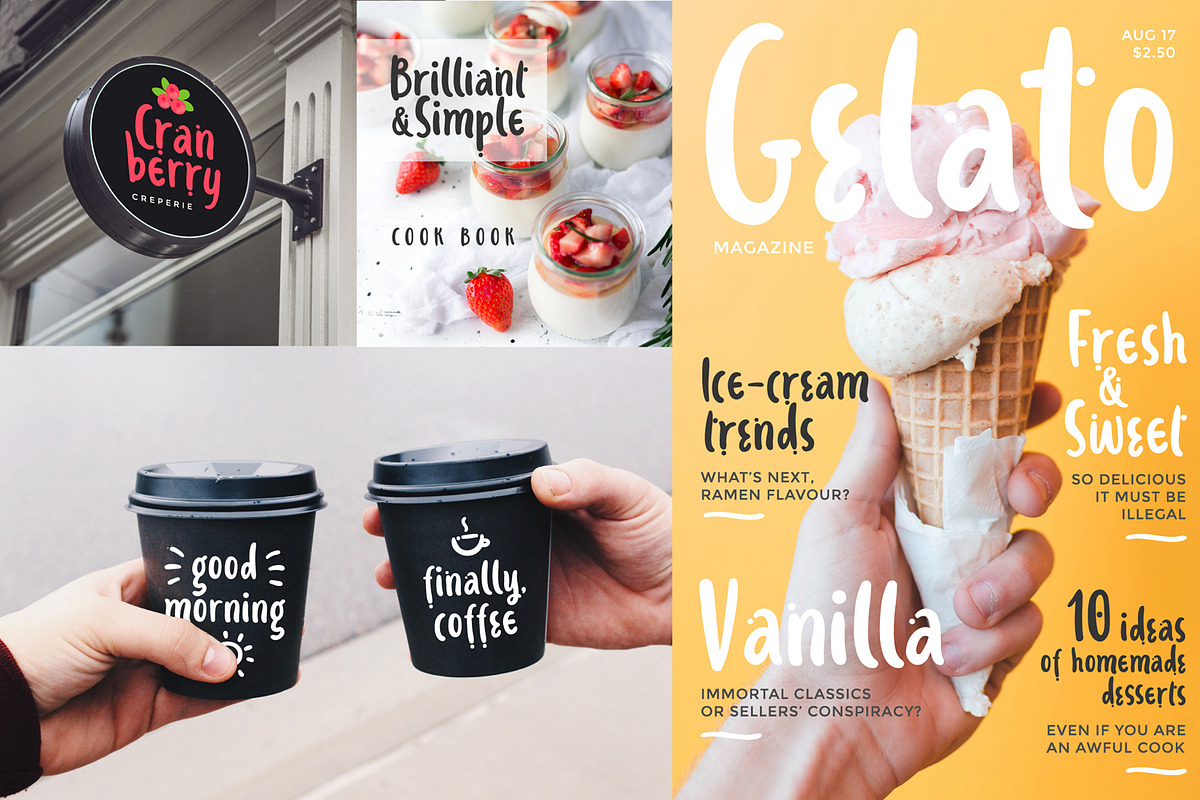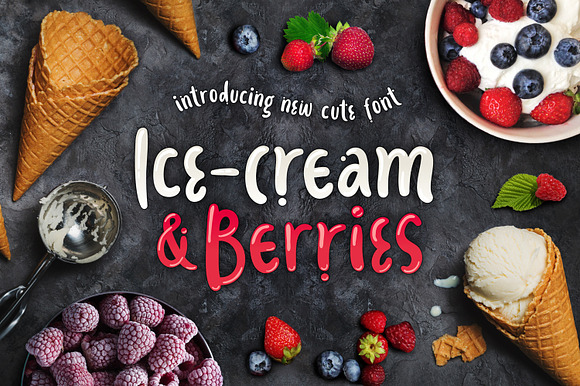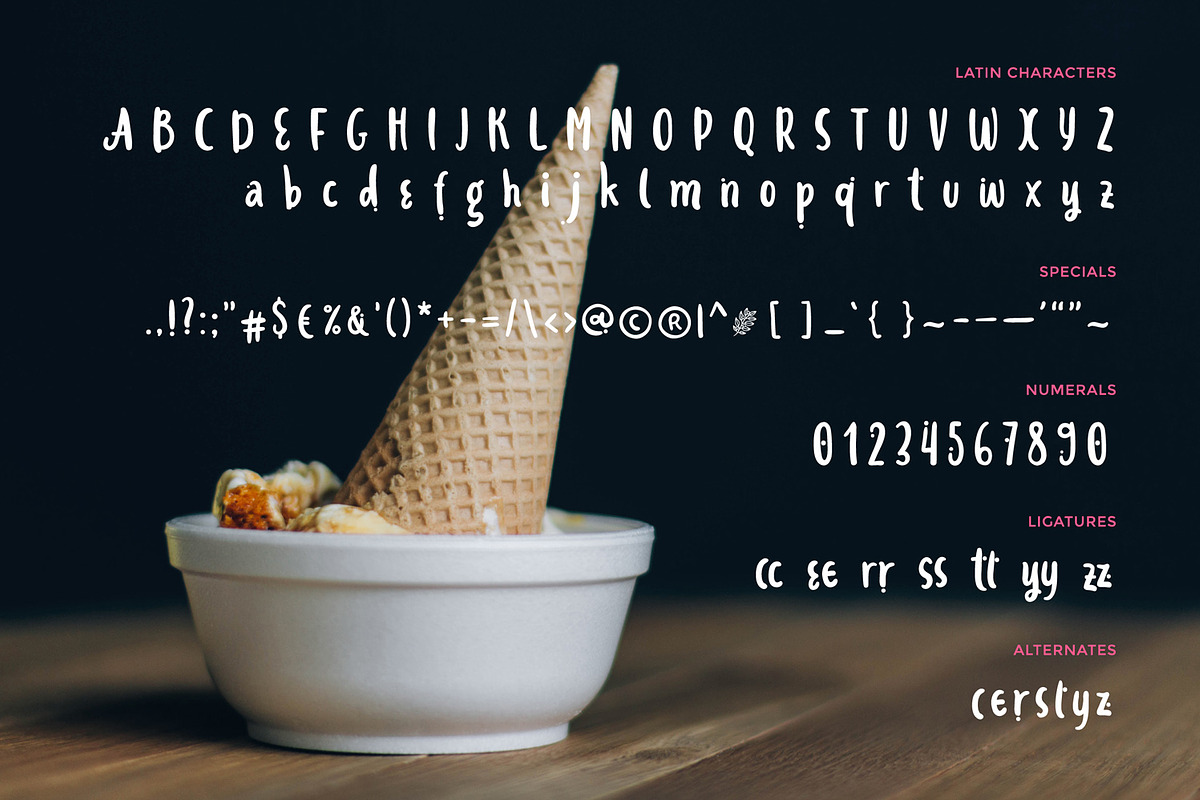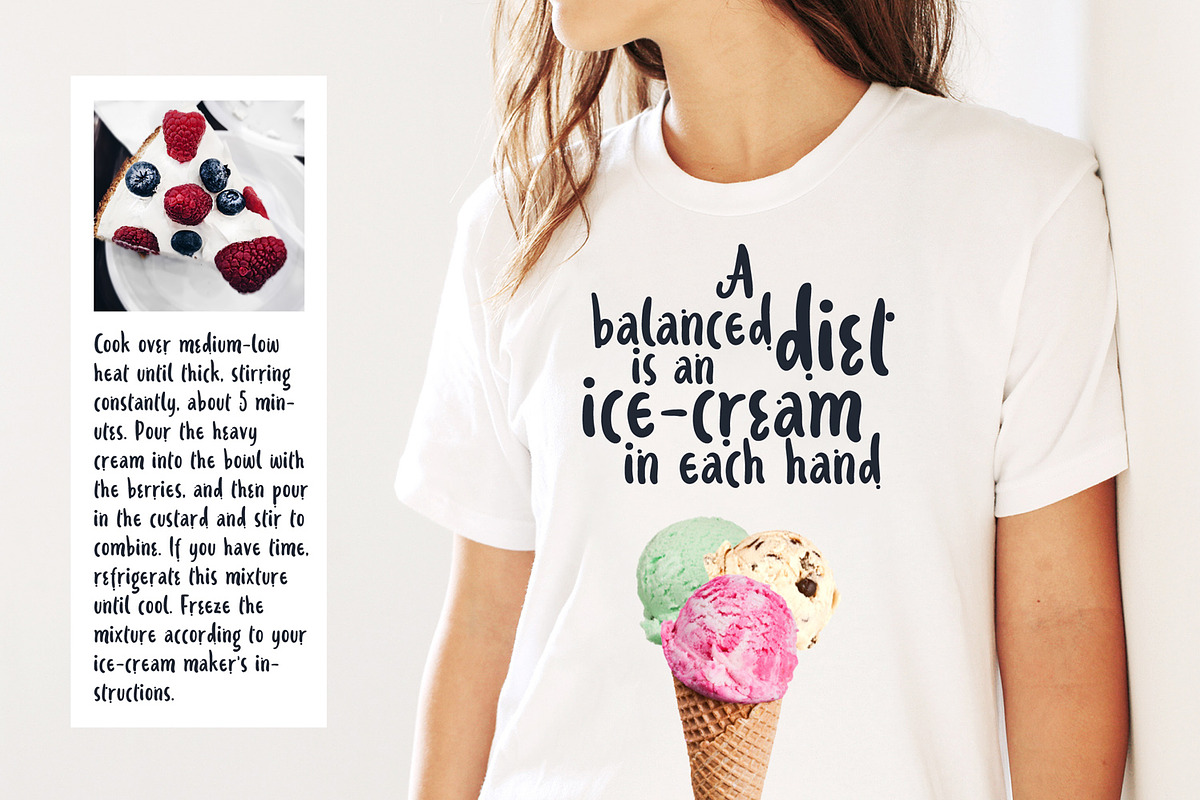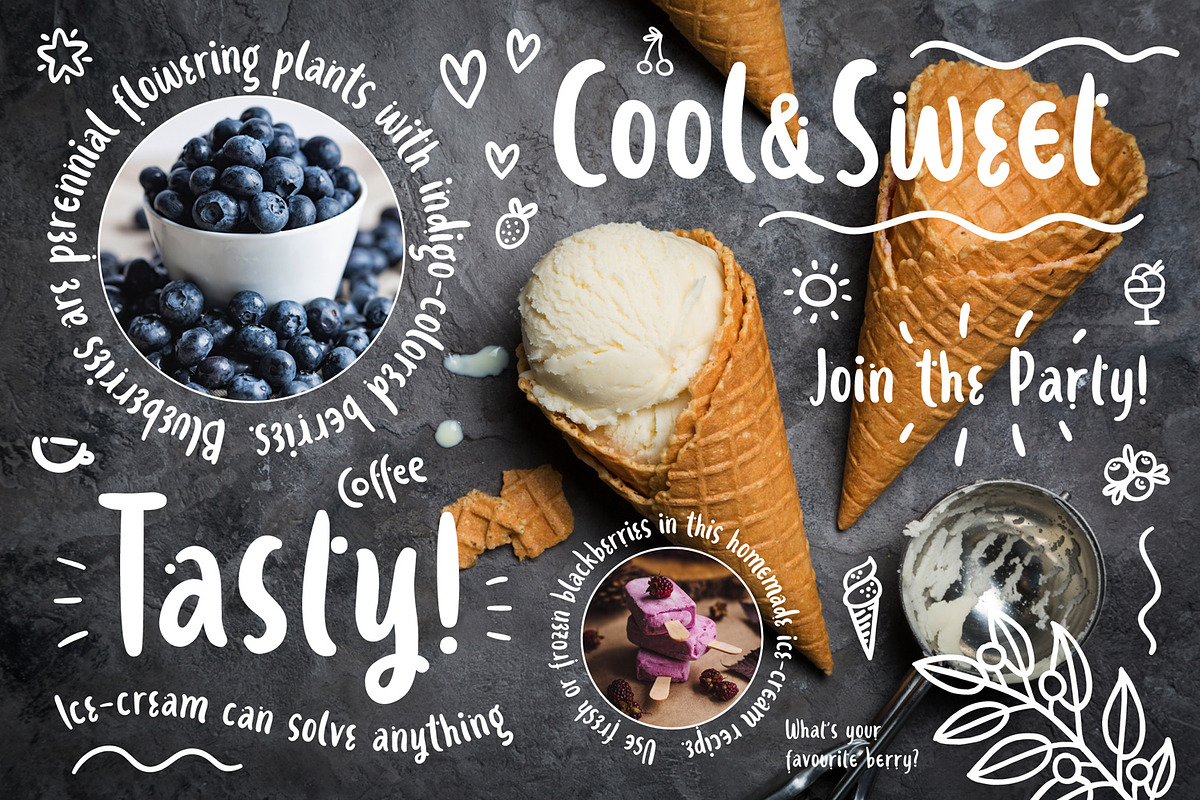
Ice-cream&Berries Font
Let me introduce a new funny and playful font - Ice-cream and Berries!
It's still summer - last days of my favourite season. Let's enjoy hot days, fresh fruits, watermelons, beach, sea, sun and ice-cream with berries!
This cute font is plump, like an ice-cream ball, and juicy, like summer berries :)